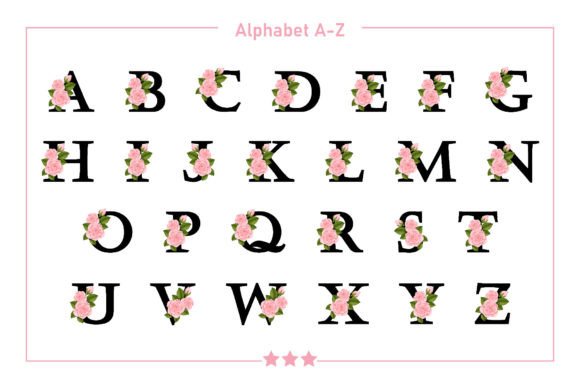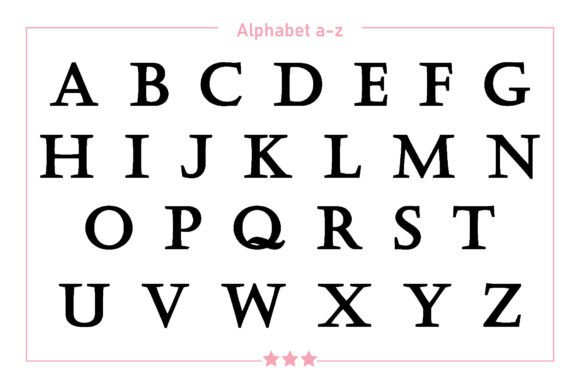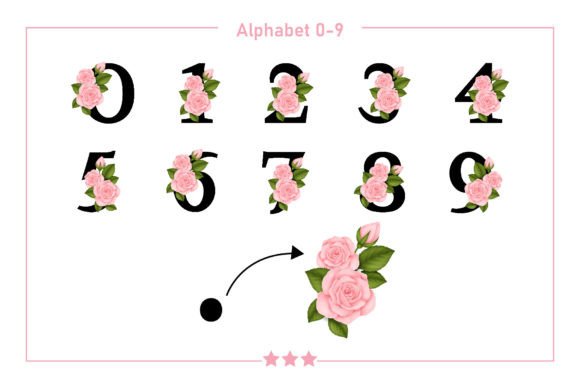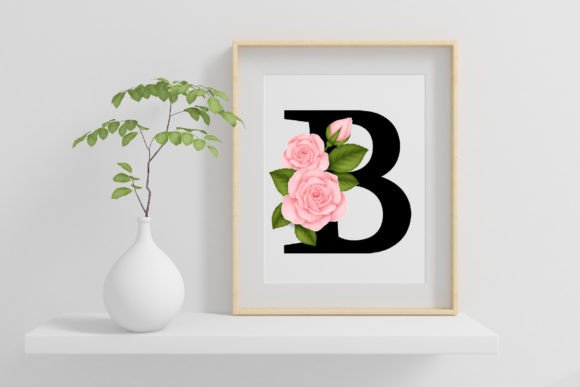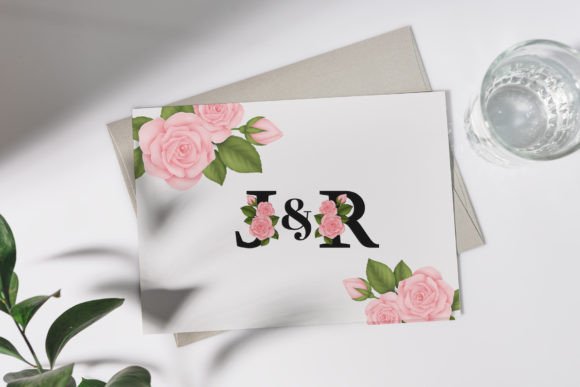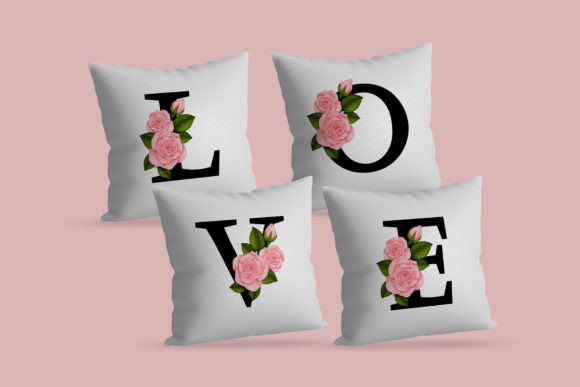
Aroma Monogram Font: Elevate Your Designs with Delicate Elegance
Are you a designer or crafter looking for a font that exudes elegance and sophistication? Look no further than the Aroma Monogram Font. This delicate and highly detailed decorative font is perfect for creating stunning invitations, beautiful stationery art, eye-catching social media posts, and adorable greeting cards.
What Makes Aroma Monogram Font Special?
Aroma Monogram Font is a unique and authentic font that will make your designs stand out from the crowd. Its intricate details and delicate lines give it a classic and timeless feel that’s perfect for a variety of creative projects. Whether you’re designing for a special occasion or just want to add some flair to your everyday creations, Aroma Monogram Font is the perfect choice.
Uses for Aroma Monogram Font
The versatility of Aroma Monogram Font is one of its best features. Here are just a few ideas for how you can use this beautiful font in your designs:
- Invitations: Create stunning invitations for weddings, baby showers, and other special occasions with Aroma Monogram Font. Its elegant feel is sure to impress your guests and set the tone for a memorable event.
- Stationery Art: Add a touch of sophistication to your stationery art with Aroma Monogram Font. Use it to create beautiful journals, planners, and greeting cards that will make your friends and family feel special.
- Social Media Posts: Make your social media posts stand out with Aroma Monogram Font. Use it to create eye-catching graphics and quotes that will grab the attention of your followers and leave a lasting impression.
- Greeting Cards: Create adorable greeting cards for any occasion with Aroma Monogram Font. Its delicate feel is perfect for birthdays, holidays, and other special occasions.
Why Choose Aroma Monogram Font?
There are many fonts available for designers and crafters, but Aroma Monogram Font stands out for several reasons:
- Unique and Authentic: Aroma Monogram Font is a one-of-a-kind font that’s sure to make your designs stand out. Its authentic feel is perfect for designers and crafters who want to create unique and memorable creations.
- Highly Detailed: The intricate details of Aroma Monogram Font make it a truly special font. Its delicate lines and curves give it a classic and timeless feel that’s hard to find in other fonts.
- Versatile: Aroma Monogram Font is a versatile font that can be used in a variety of creative projects. Whether you’re designing for a special occasion or just want to add some flair to your everyday creations, this font is perfect.
Tips for Using Aroma Monogram Font
Here are a few tips for getting the most out of Aroma Monogram Font:
- Experiment with Colors: Aroma Monogram Font looks beautiful in a variety of colors. Experiment with different hues and combinations to find the perfect look for your design.
- Mix and Match: Don’t be afraid to mix and match Aroma Monogram Font with other fonts and design elements. Its delicate feel pairs well with bold and playful designs.
- Pay Attention to Details: The intricate details of Aroma Monogram Font are what make it special. Pay attention to these details and use them to enhance your design.
Aroma Monogram Font is a beautiful and versatile font that’s perfect for designers and crafters. Its delicate feel and intricate details make it a unique and authentic font that’s sure to make your designs stand out. Whether you’re creating invitations, stationery art, social media posts, or greeting cards, Aroma Monogram Font is the perfect choice. So why wait? Add Aroma Monogram Font to your creative toolkit today and start creating stunning designs that will leave a lasting impression!